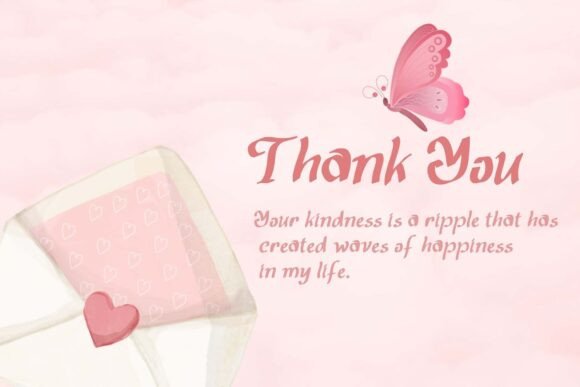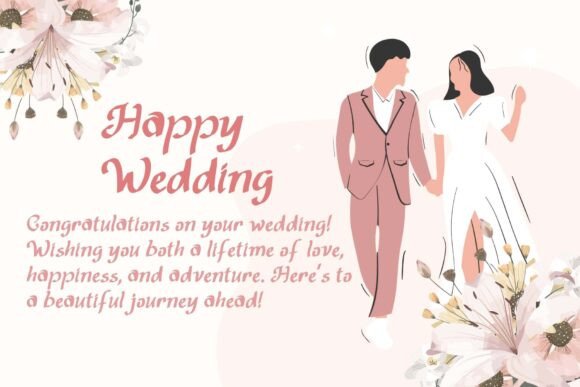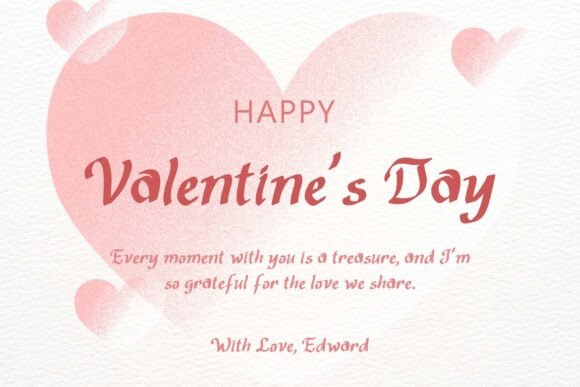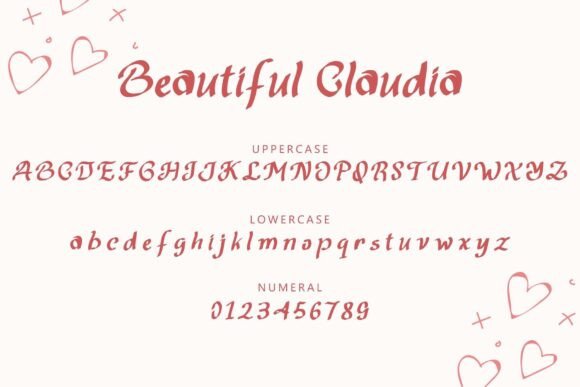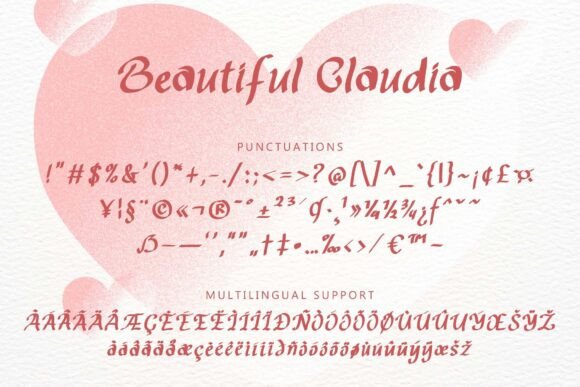
Unleashing Creativity with the Perfect Font
Have you ever stared at a blank page, waiting for inspiration to strike? It’s a moment we’ve all experienced, and it’s precisely when the right tool can make all the difference. For designers, the right font can be the key to unlocking a project’s full potential. That’s where the Beautiful Claudia Font comes in – a stunning display font designed to elevate any design.
This elegant font is more than just a pretty face; it’s a versatile tool that’s perfect for a wide range of projects, from wedding invitations to birthday banners. With its extensive character set and multilingual support, the Beautiful Claudia Font is an invaluable asset for designers looking to add a touch of sophistication to their work.
Beautiful Claudia Font Key Features
- Unique Characteristics: Elegant script font with a touch of vintage charm, featuring flowing connections and subtle flourishes
- Font Style: Script, Calligraphy
Beautiful Claudia Font Review
Overall, I think the Beautiful Claudia Font is a solid choice for those looking for a classic, elegant look. ✨ Here are some of its strengths:
- Legibility: The font is highly legible, even at smaller sizes.
- Classic feel: It has a timeless, sophisticated feel that’s perfect for formal or traditional designs.
- Variety of weights: The font comes in a range of weights, from light to bold, giving designers flexibility.
- Lack of personality: The font is very traditional and may not stand out in a crowded design market.
- No unique features: It doesn’t have any distinctive features that set it apart from other classic fonts.
- Not ideal for modern designs: While it’s great for formal or traditional designs, it may not be the best choice for modern or edgy designs.
Overall, I think the Beautiful Claudia Font is a good choice for designers who want a reliable, classic font that’s easy to read and use. However, it may not be the best fit for designers who want a more unique or modern look.
For optimal results, use the Beautiful Claudia font for titles and headings, and pair it with a clean and simple font for body text.
The Beautiful Claudia font is ideal for:
- Photography and design portfolios
Remember to use the Beautiful Claudia font in moderation and pair it with other fonts to create a visually appealing design.
Alternatives to Beautiful Claudia Font
Carolyna Pro is a modern sans-serif font ideal for creating a sleek and sophisticated look. It is suitable for a wide range of designs, from branding to editorial content. Unlike Beautiful Claudia Font, Carolyna Pro has a more minimalist and clean aesthetic, making it perfect for designs that require a touch of elegance.
Great Vibes is a beautiful script font that exudes a sense of luxury and sophistication. It is perfect for designs that require a touch of elegance and sophistication, such as wedding invitations, luxury branding, and high-end editorial content. While Beautiful Claudia Font has a more classic feel, Great Vibes has a more modern and elegant feel.
Alex Brush is a beautiful script font that is perfect for designs that require a touch of elegance and sophistication. It is ideal for branding, editorial content, and packaging design. Unlike Beautiful Claudia Font, Alex Brush has a more whimsical and handwritten feel, making it perfect for designs that require a touch of personality.
Ostrich Sans is a modern sans-serif font that is perfect for designs that require a clean and minimalist aesthetic. It is ideal for branding, editorial content, and digital design. Unlike Beautiful Claudia Font, Ostrich Sans has a more geometric and modern feel, making it perfect for designs that require a touch of sophistication and elegance.